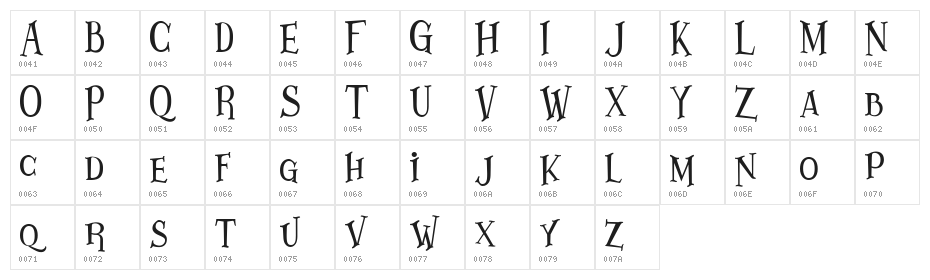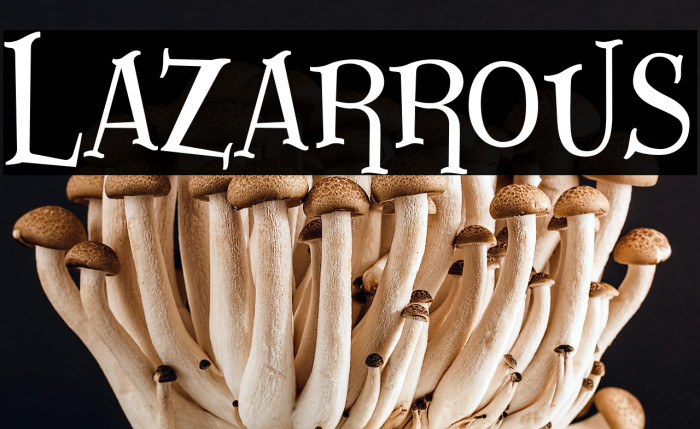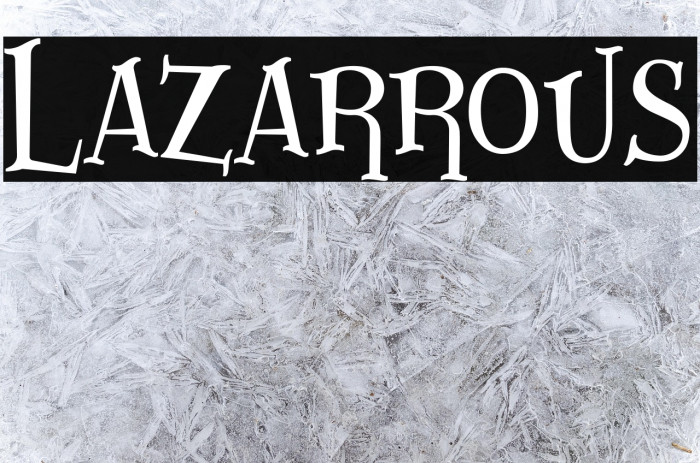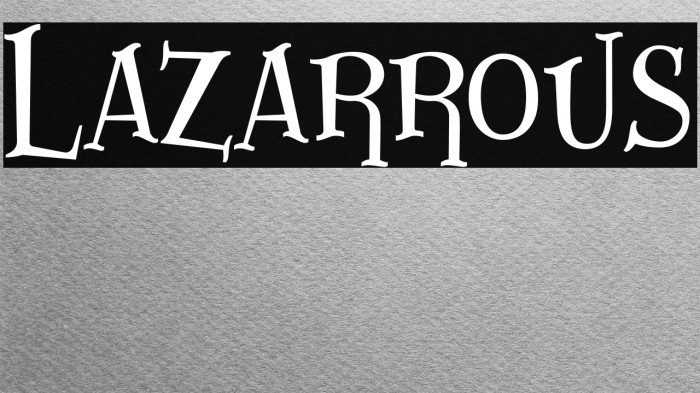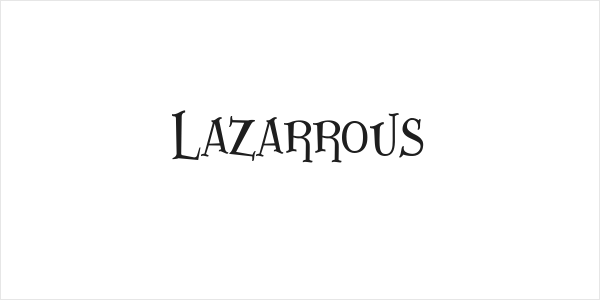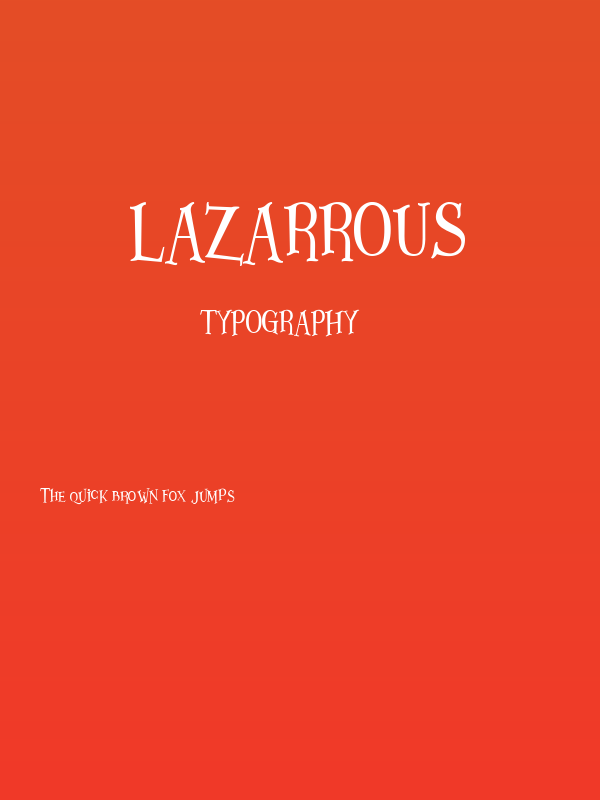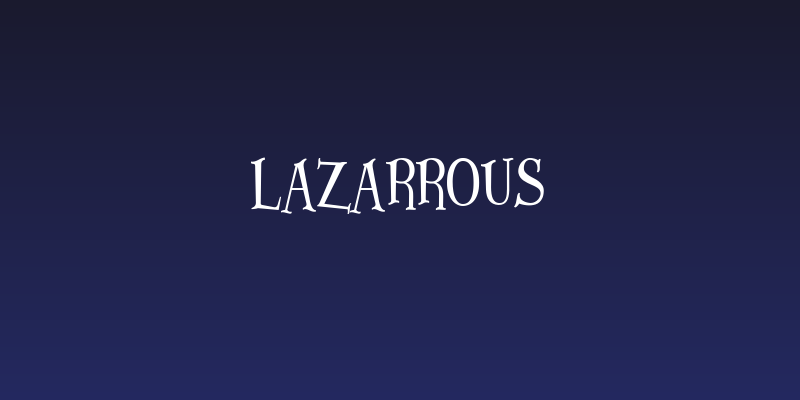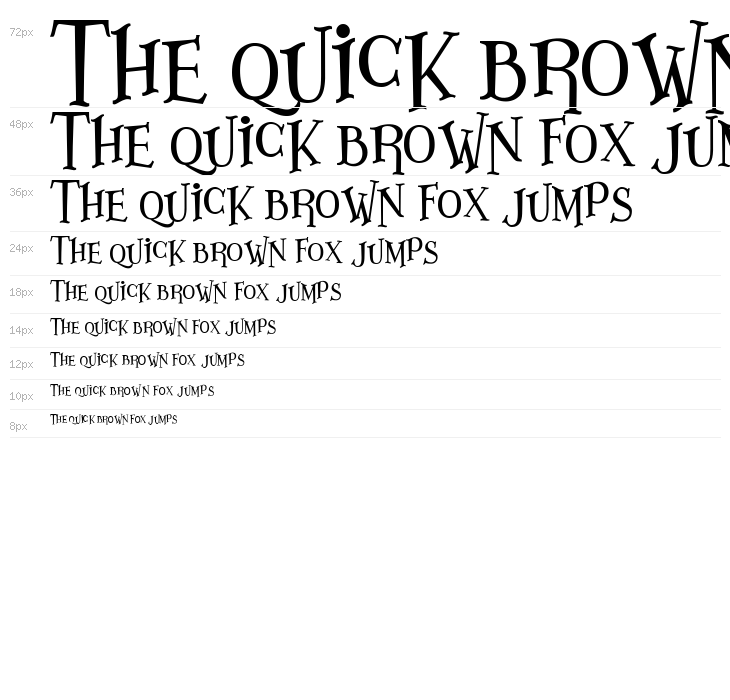
Lazarrous Font
Lazarrous Description
This font features a unique and artistic style with a medieval flair. The characters are designed with sharp, angular serifs and a slightly uneven baseline, giving it a hand-crafted appearance. The uppercase letters are bold and prominent, while the lowercase letters maintain a consistent style with a slightly smaller size. The numbers and special characters are designed to match the overall aesthetic, ensuring a cohesive look across all text. This font's distinct style makes it ideal for projects that require a touch of historical or fantasy elements.
| Proposed Projects | Ideal for fantasy book covers, historical event posters, themed invitations, and video game graphics. |